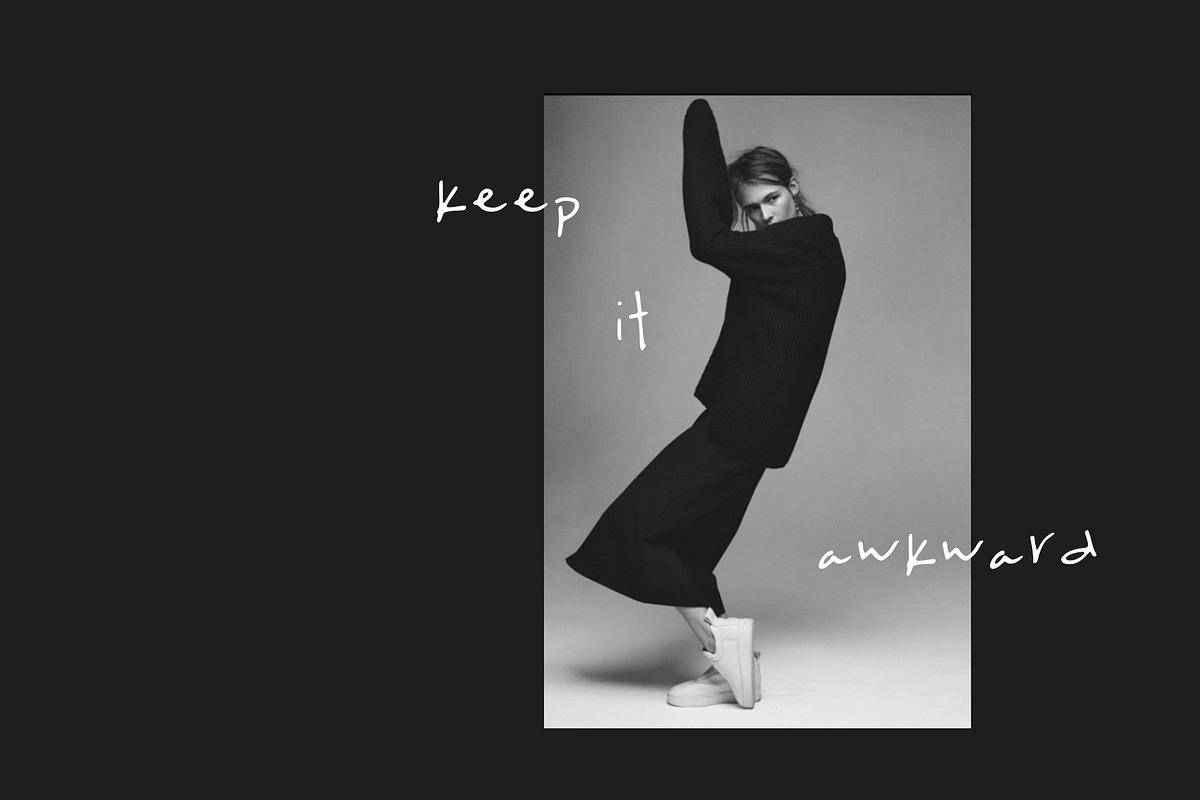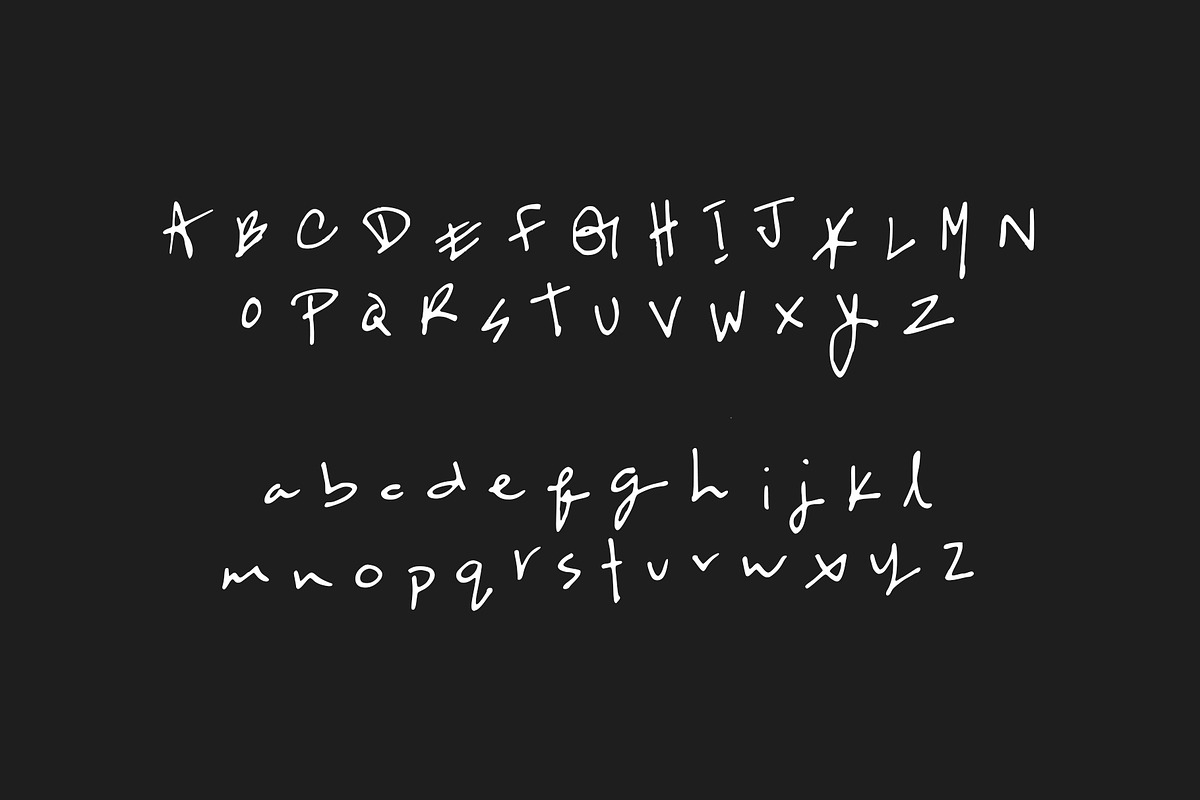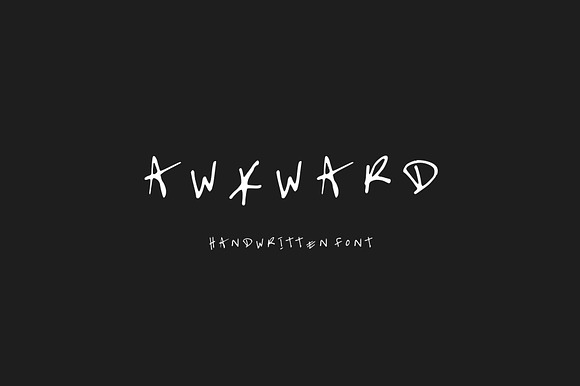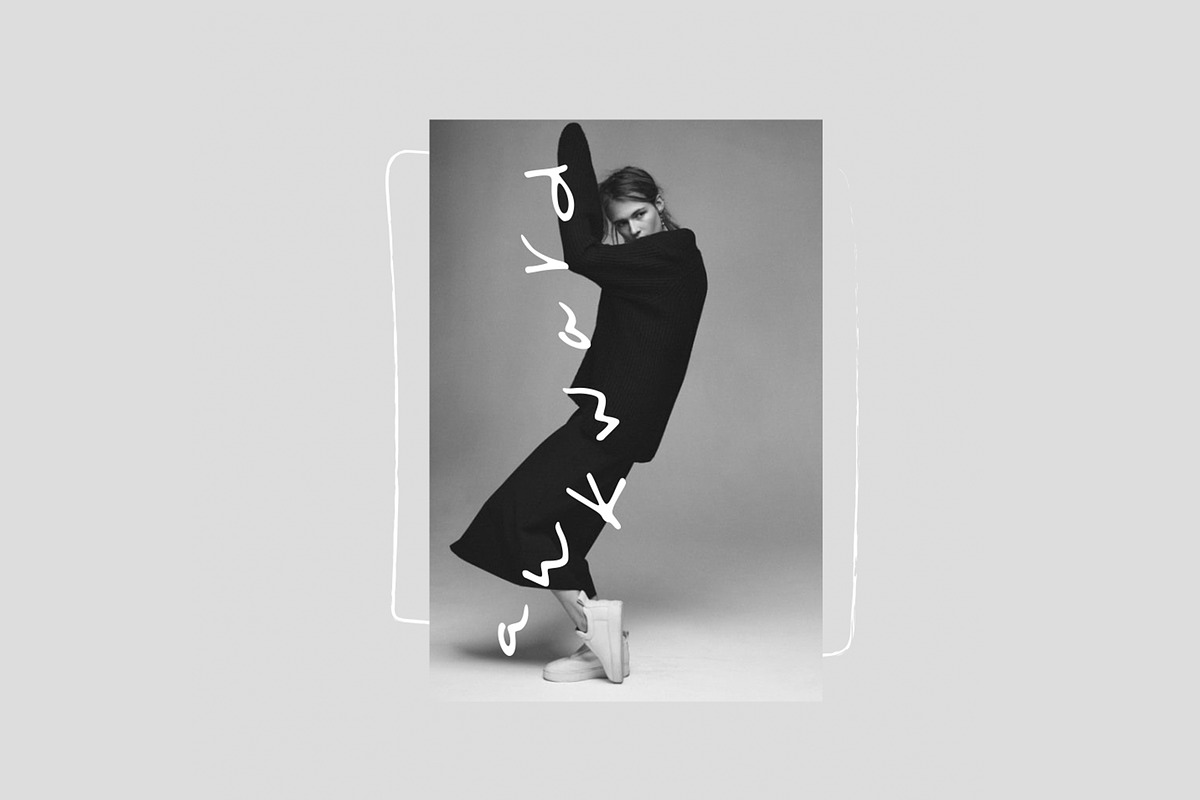
Handwritten Font - Awkward
Awkward font is handwritten and is clean, simple and feminine. It's great for fashion brands, blogs, mastheads, magazines, logos and headers. This font is perfect for when you want to add a handwritten accent to your design layouts. Font files come in OTF and TTF.
- This font is perfect for when you want to add a handwritten accent to your design layouts.
Why Handwritten Font - Awkward is worth a look
Handwritten Font - Awkward by Lindsay Lennartson Design fits naturally into Branding, posters, packaging, typography.